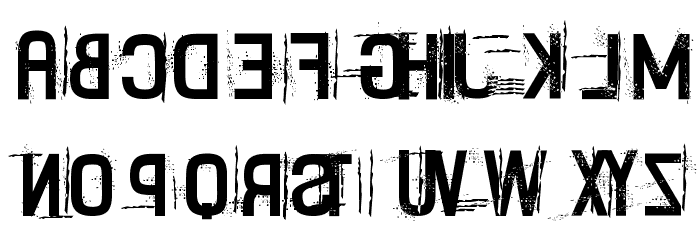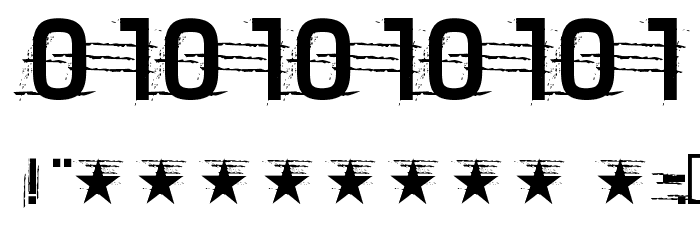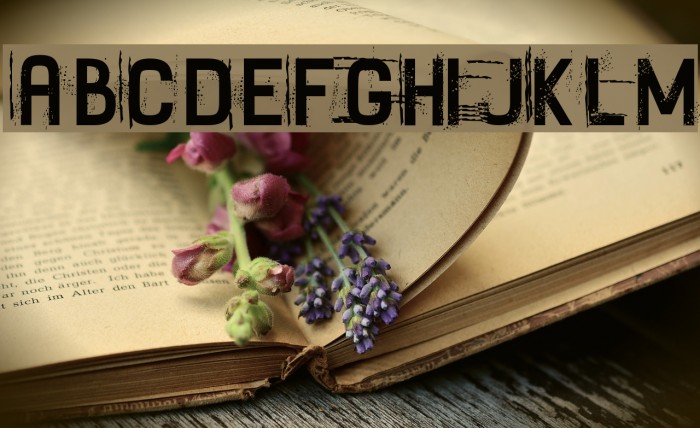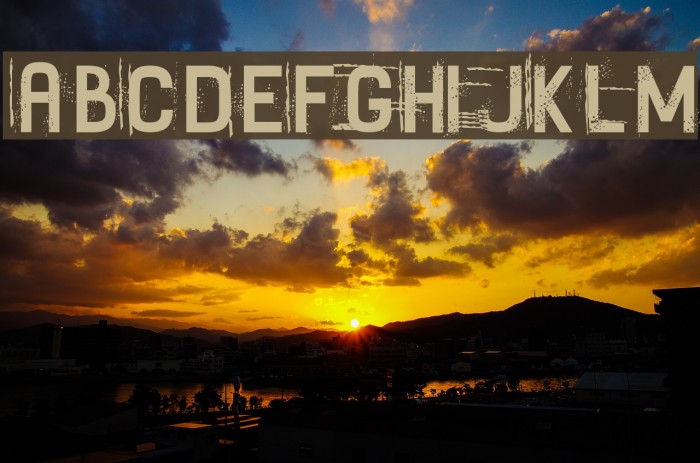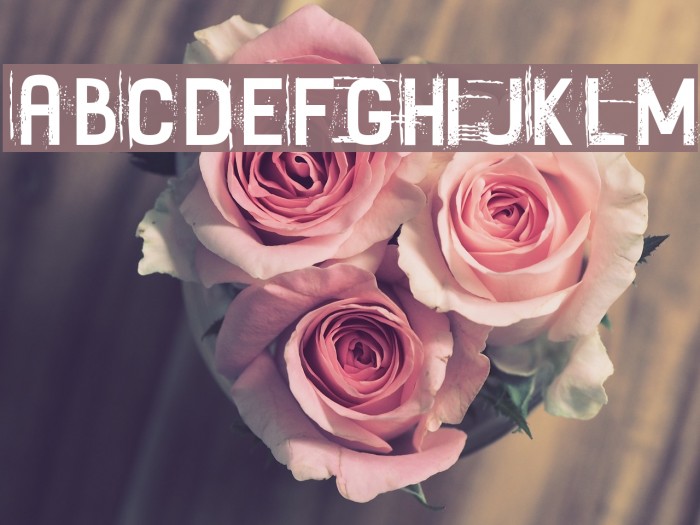
Fayettenam Font
This font features a bold, distressed style with a grunge effect that gives it a rugged, worn appearance. The characters are uppercase and have a stencil-like quality, with portions of the letters appearing as if they have been scratched or eroded. This adds a dynamic and edgy feel to the text, making it stand out with a rebellious and urban vibe. The font maintains a consistent width across all characters, providing a uniform look despite the distressed elements. The design is reminiscent of industrial or military stencils, often used in contexts that require a strong, impactful visual presence.
A bold, distressed stencil font with a rugged, grunge effect.
- Proposed Projects: Ideal for projects needing an edgy, urban aesthetic such as band posters, streetwear branding, or video game graphics.
- Overall Style: Grunge, Urban, Industrial
- Use Case: Logos, Posters, Headlines